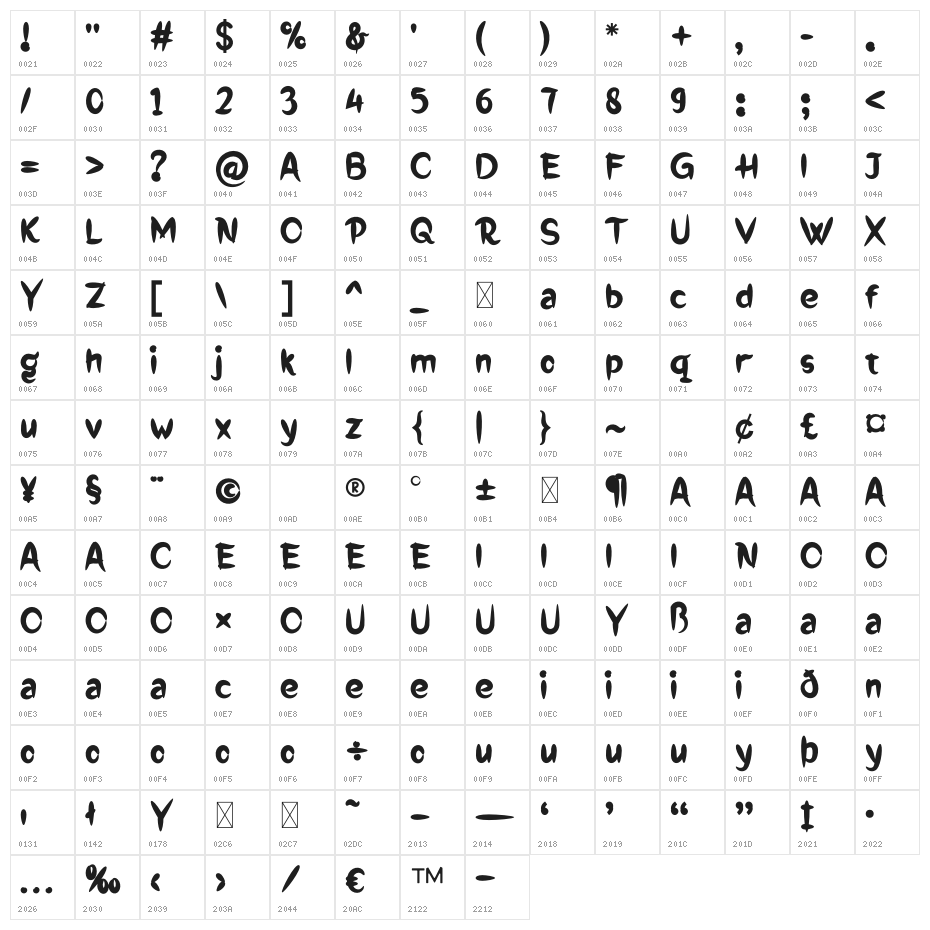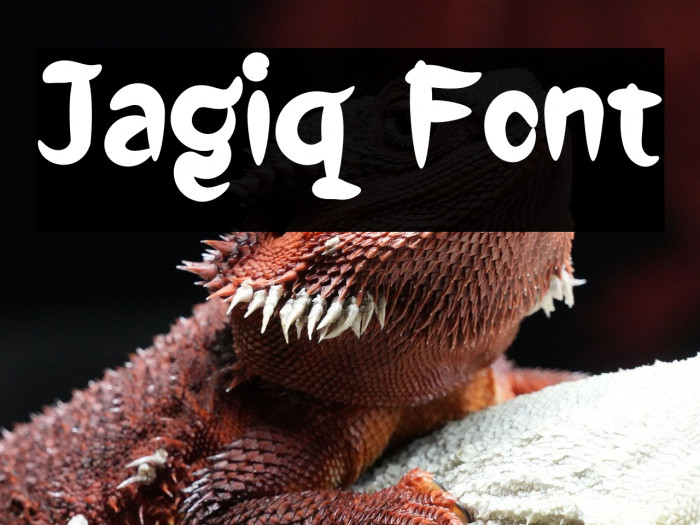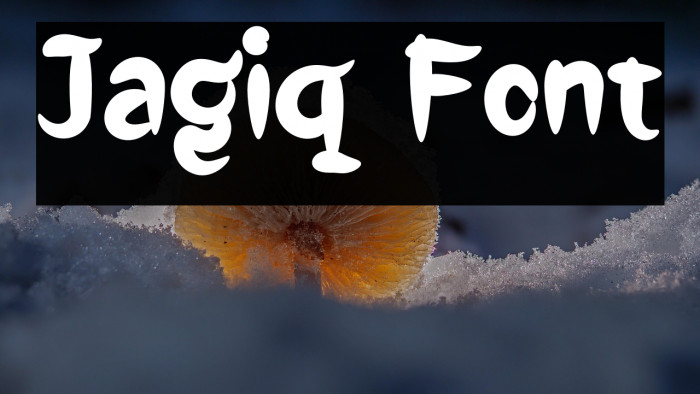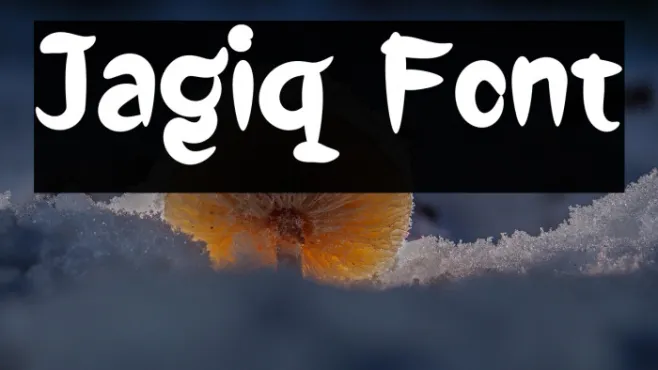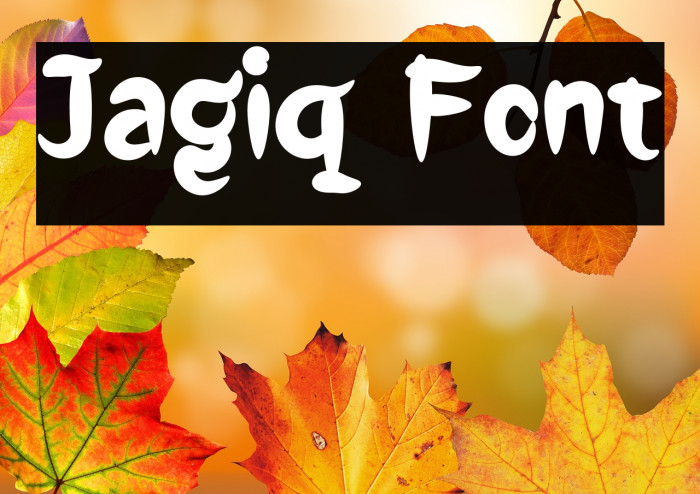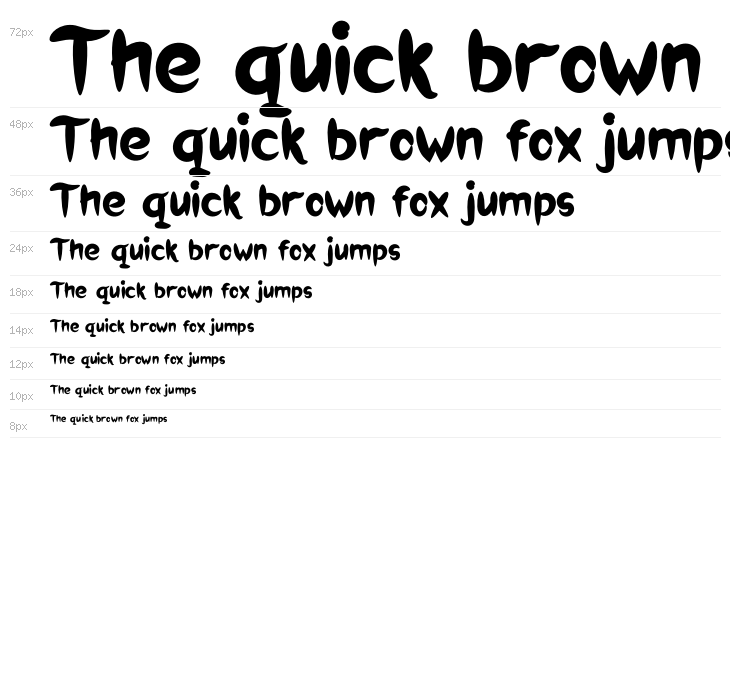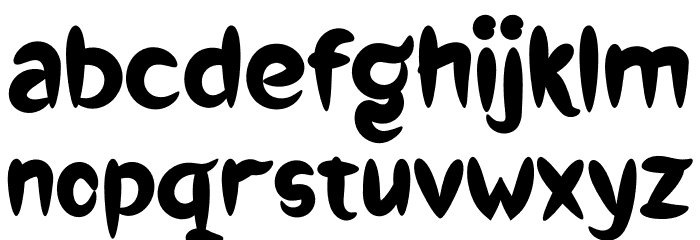
Jagiq Font
Jagiq Description
This font features a playful and bold style with a handwritten appearance. The characters are rounded and slightly irregular, giving it a casual and friendly feel. The uppercase and lowercase letters maintain a consistent thickness, while the numbers and special characters complement the overall design. The strokes are thick, providing a strong presence, and the slightly uneven lines add a touch of whimsy. This font is well-suited for creative projects that require a personal and informal touch.
Overall StylePlayful
Use CaseHeadlines, Logos, Informal Text
Proposed ProjectsIdeal for children's books, greeting cards, playful branding, and casual invitations.